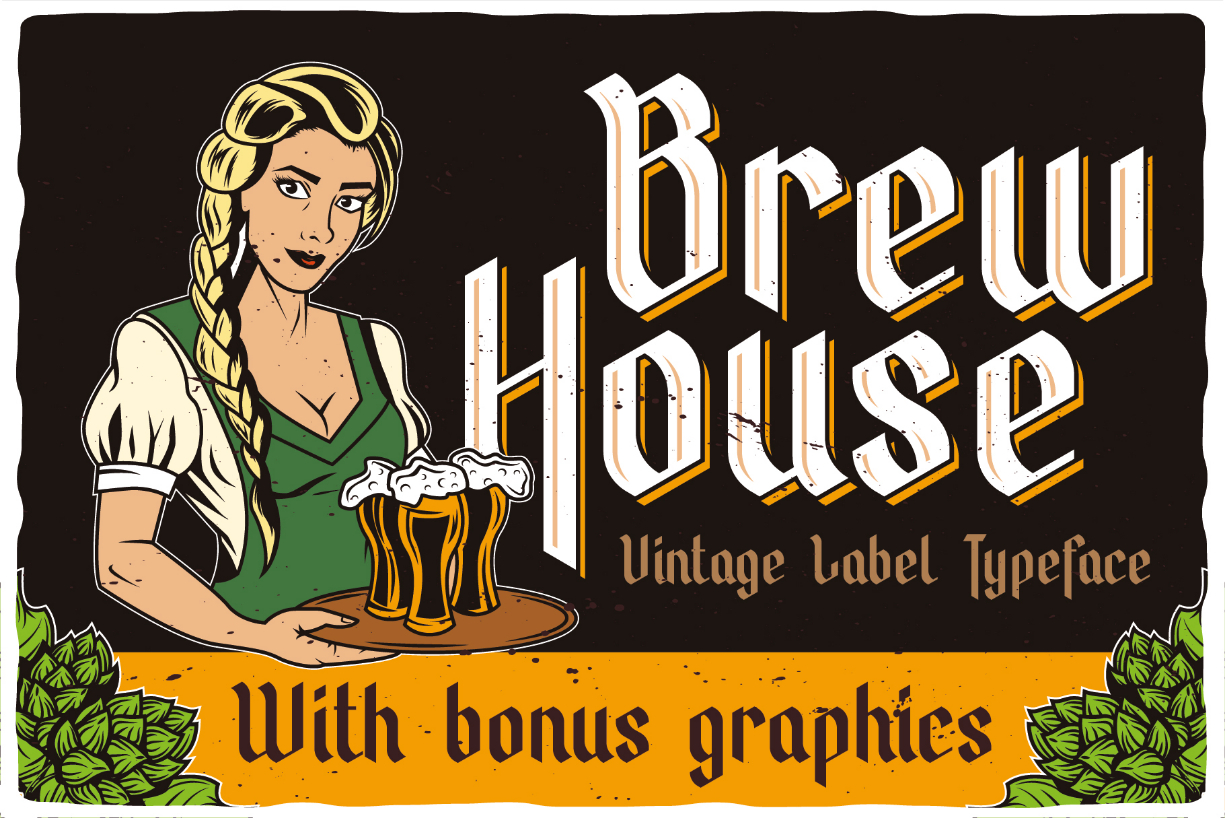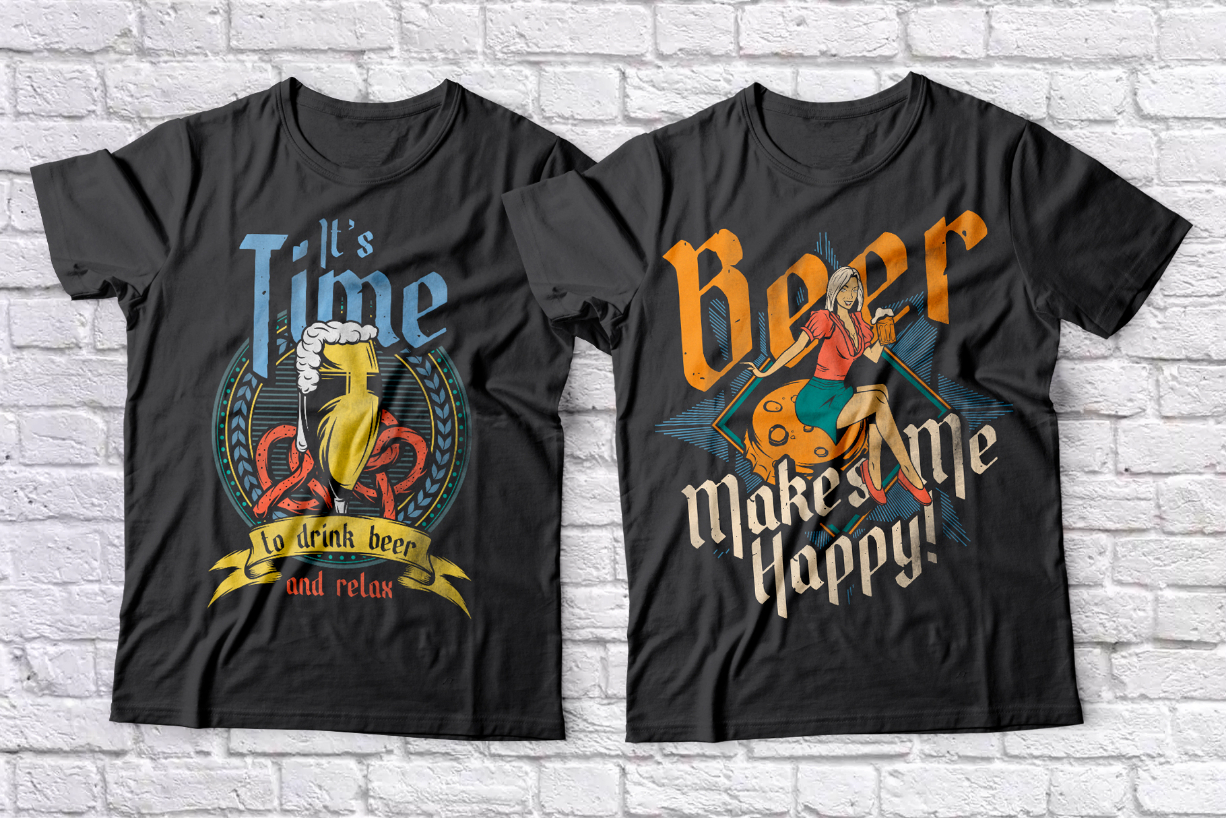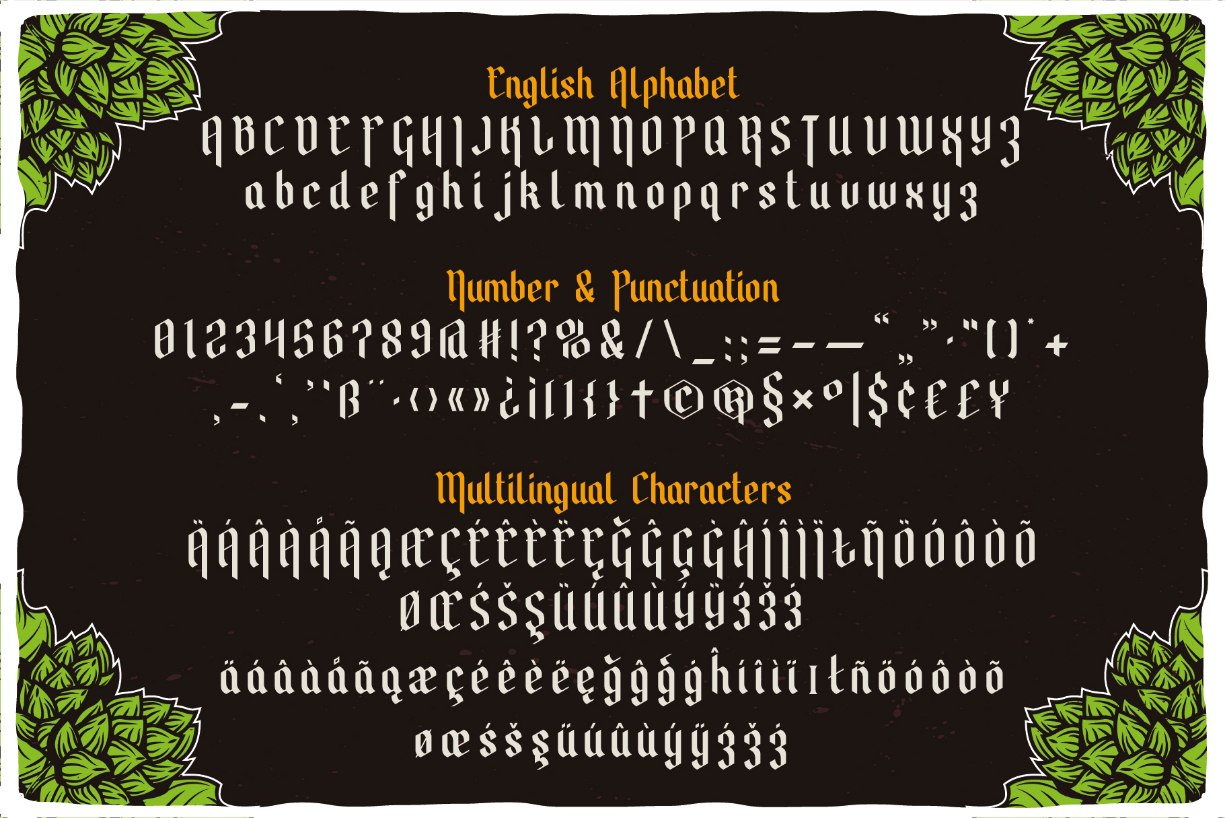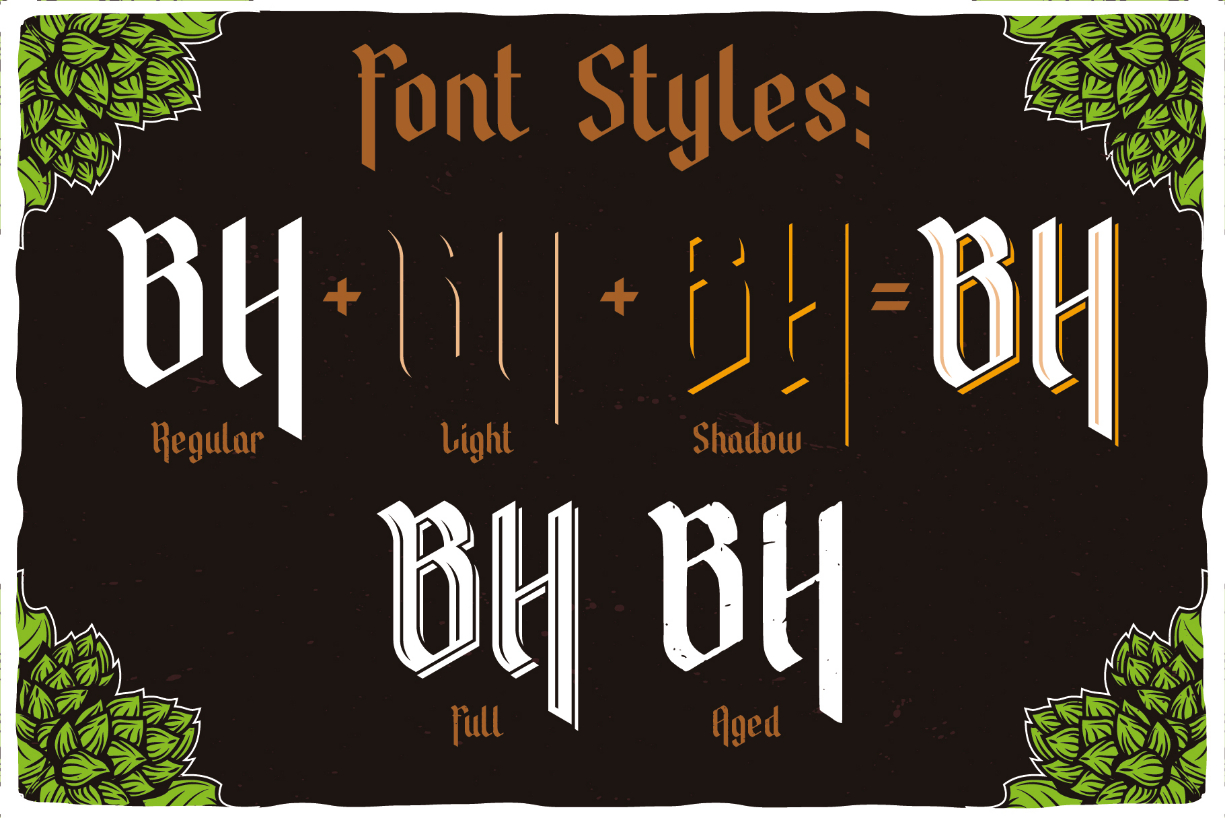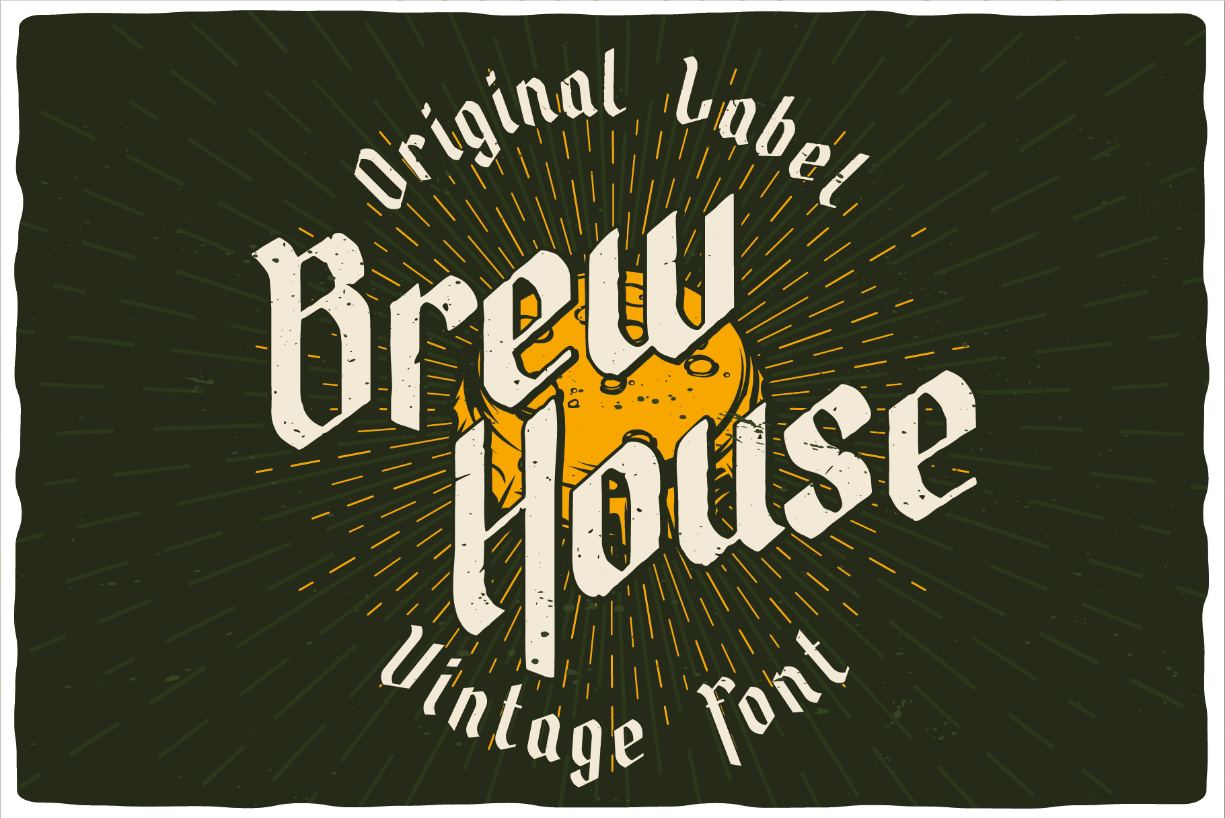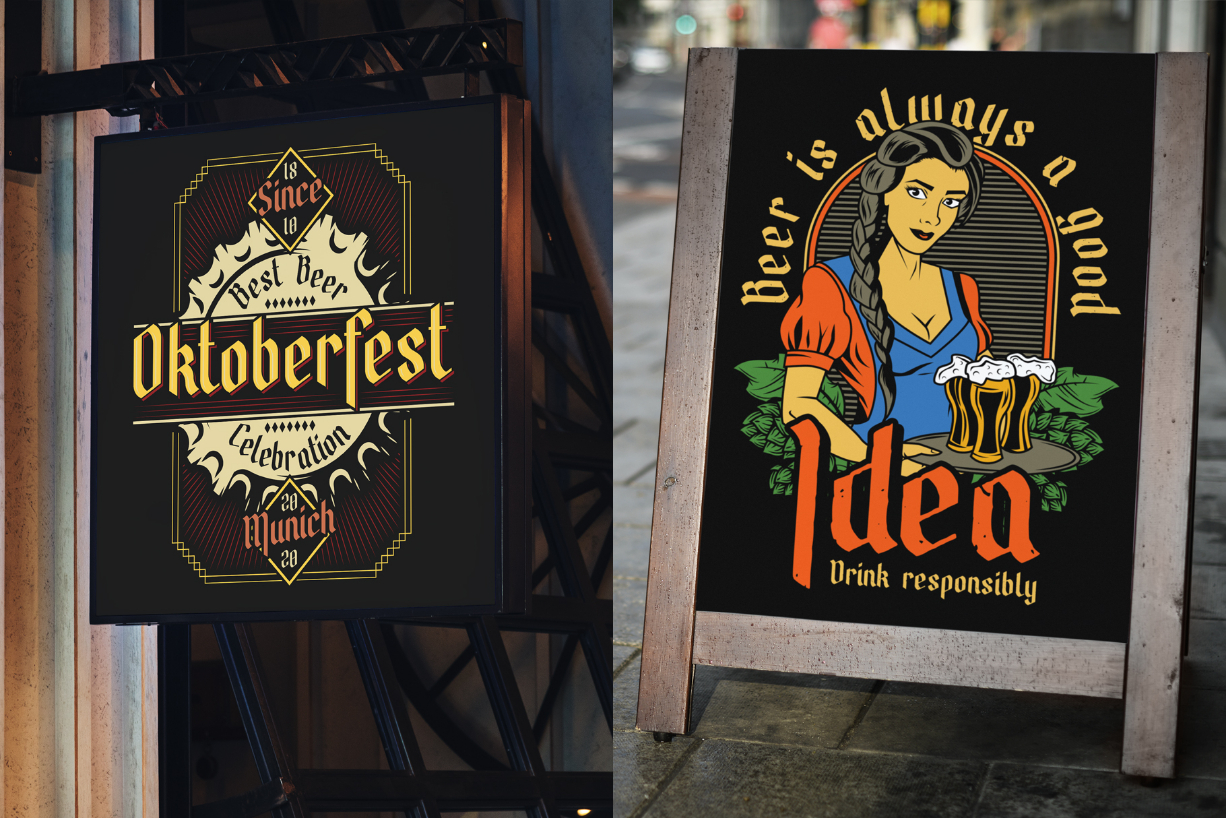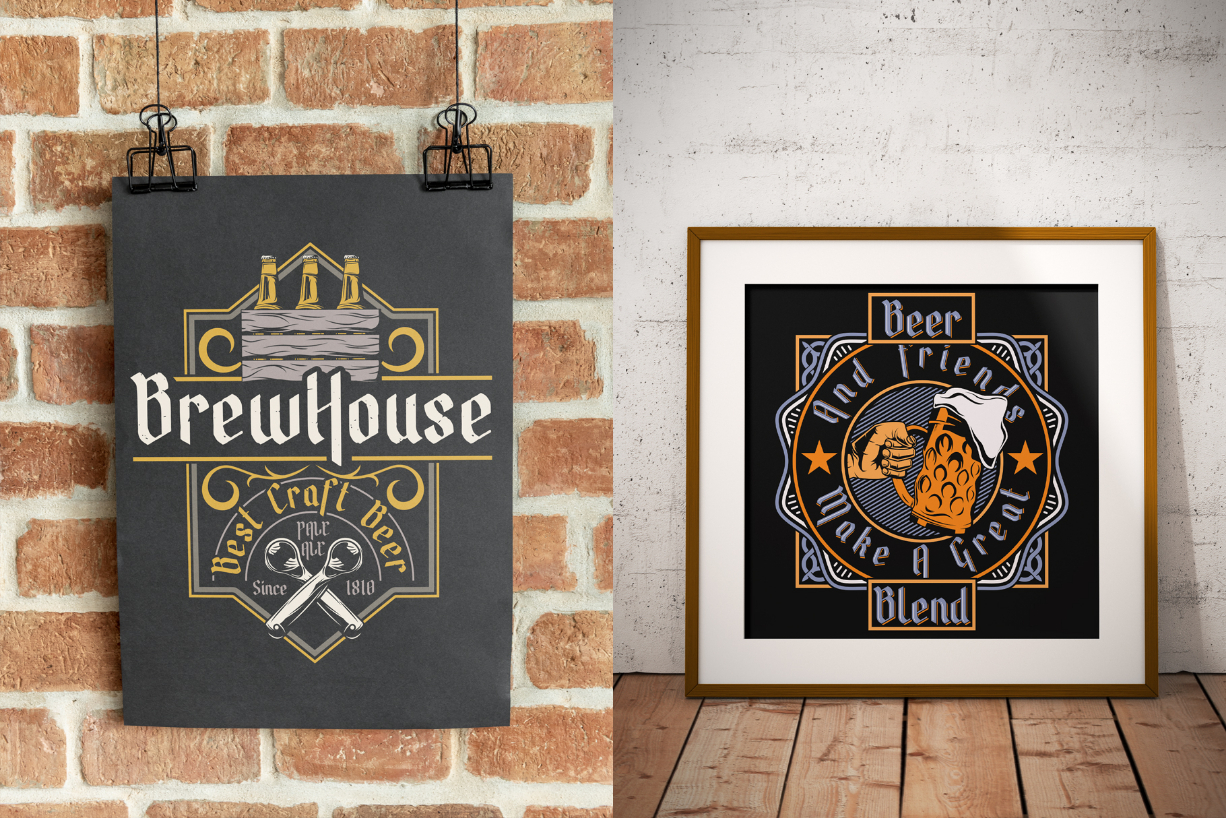
Brew House Font
About Brew House Font
Brew House is a simple and authentic blackletter font. It is suitable for creating any branding, product packaging, invitation, quote, t-shirt, label, poster, logo that you wish to develop.